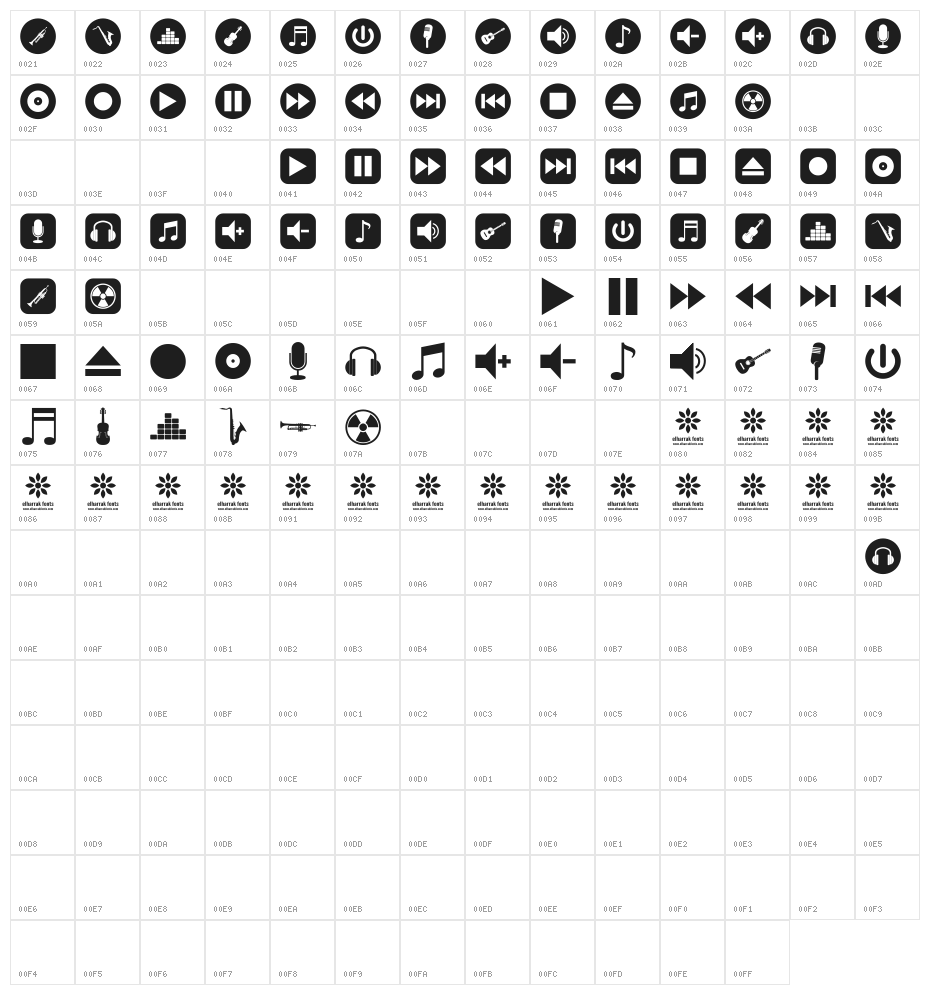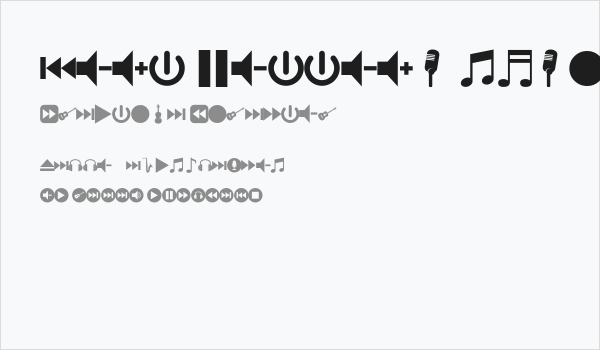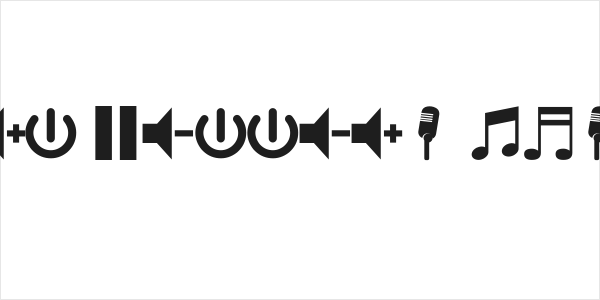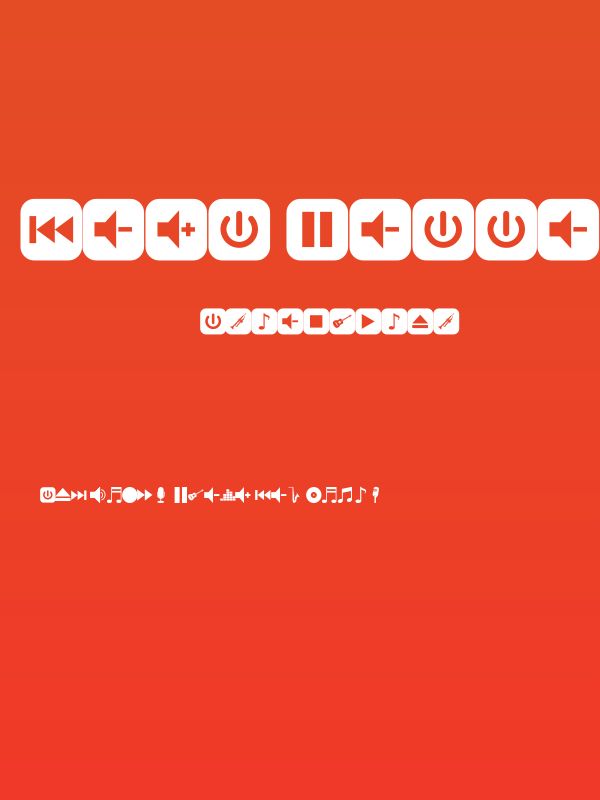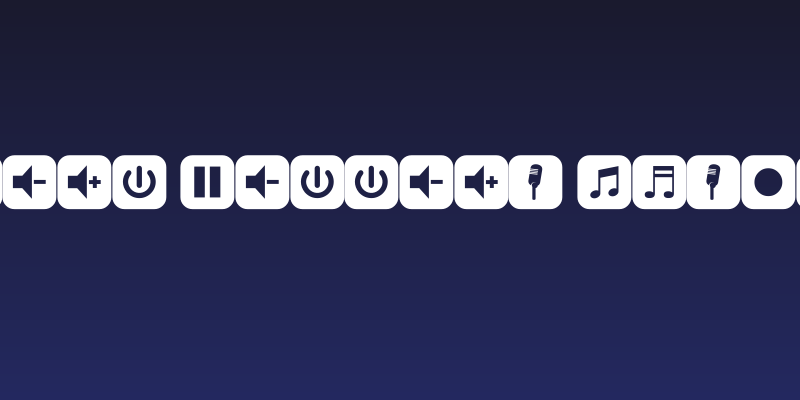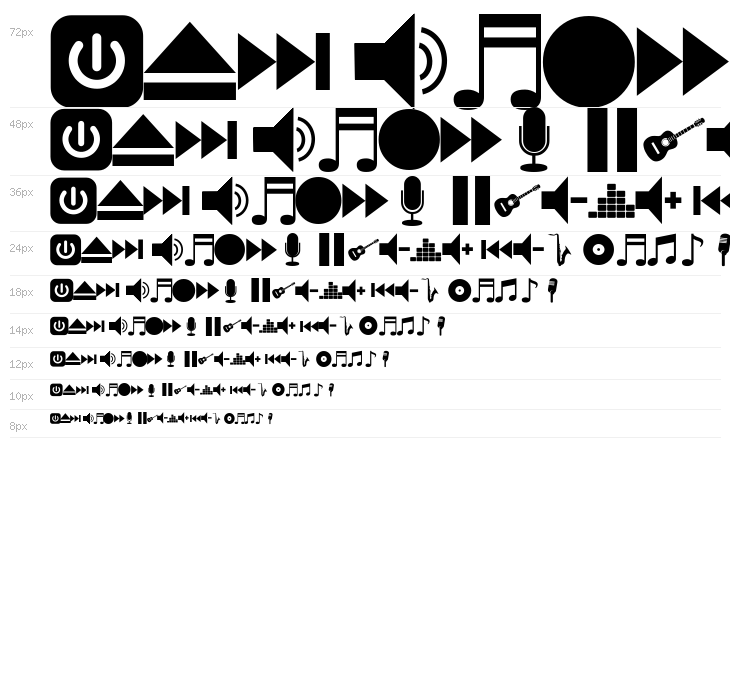
font bottons music Font
font bottons music Description
A collection of bold, geometric music and media control icons including play, pause, stop, fast forward, rewind, volume, power, musical notes, instruments, and audio equipment, presented in both square and circular backgrounds with high contrast and simple silhouettes.
| Overall Style | Modern, Minimalist, Functional |
| Use Case | Icons, UI elements, Buttons, App interfaces |
| Proposed Projects | Music apps, audio software, media players, websites, user interfaces, educational materials. |